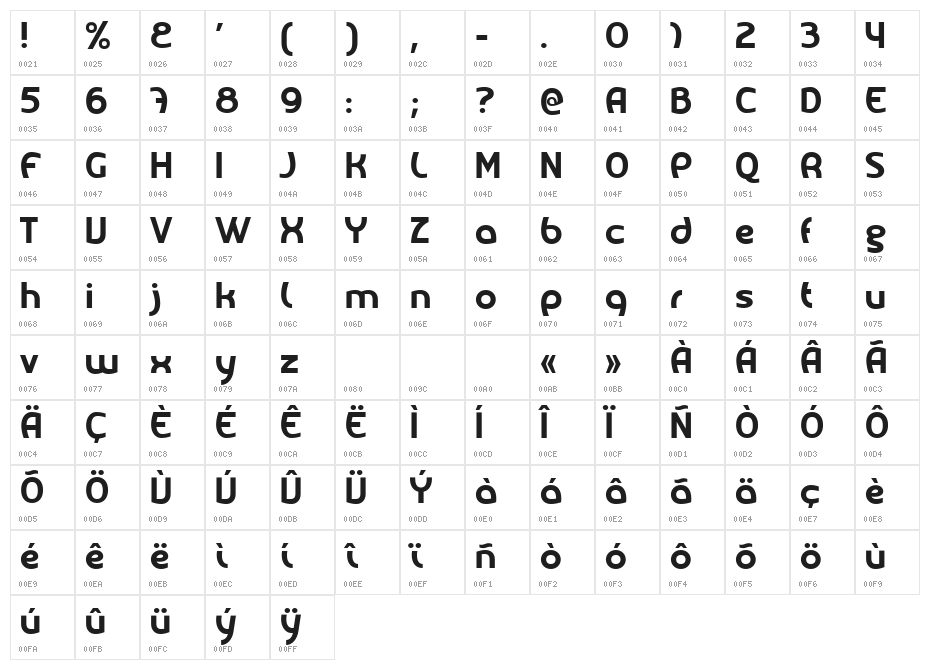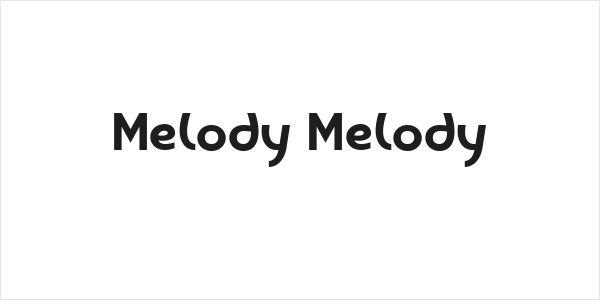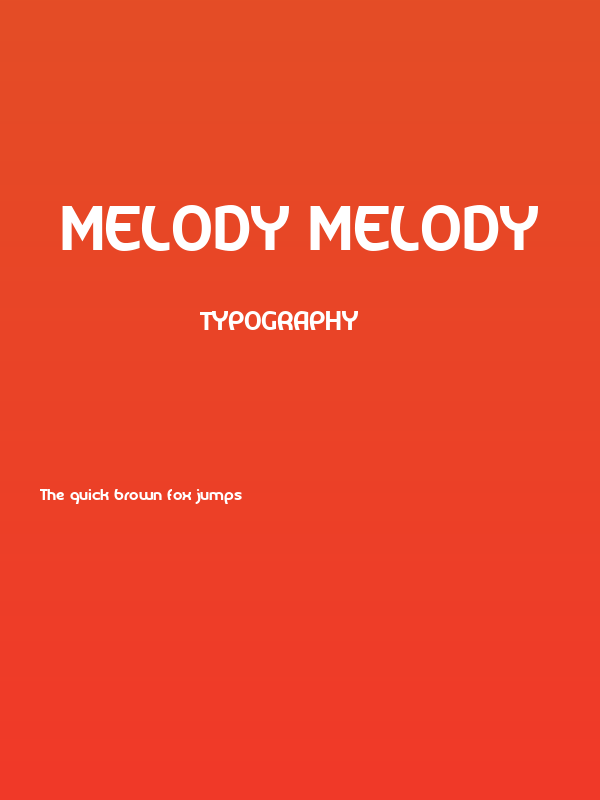
Melody Melody Font
Melody Melody Description
This font features a bold, rounded style with a playful yet modern aesthetic. The characters are evenly weighted, providing a sense of balance and uniformity. The uppercase letters are slightly wider than the lowercase, giving a distinctive look that stands out. The numbers are consistent with the letterforms, maintaining the same rounded edges and bold appearance. Special characters are designed to match the overall style, ensuring cohesion across all glyphs. This font is highly legible and versatile, suitable for various design applications.
| Proposed Projects | Ideal for branding, headlines, posters, and digital media where a modern and friendly look is desired. |